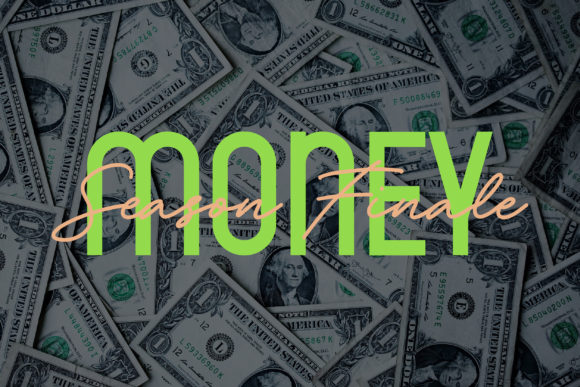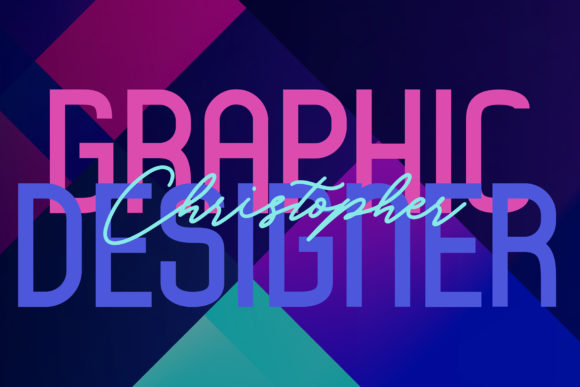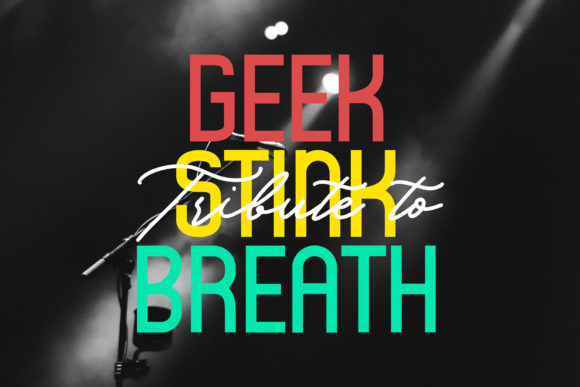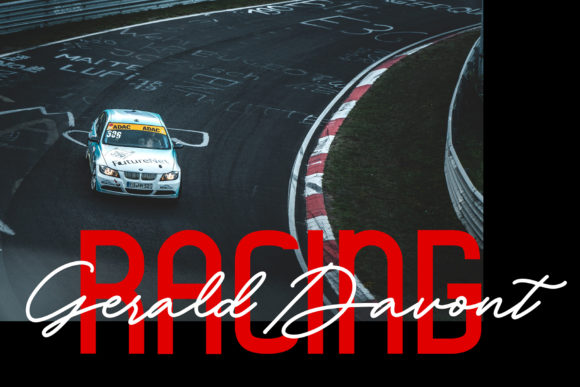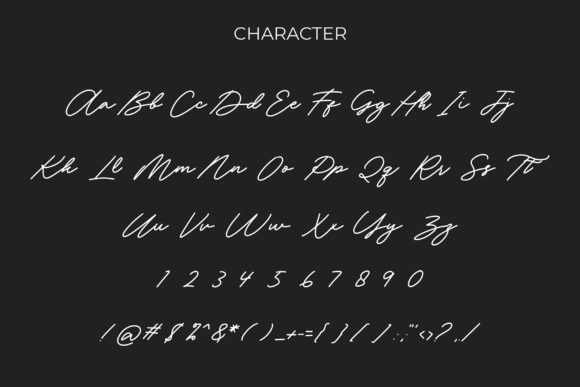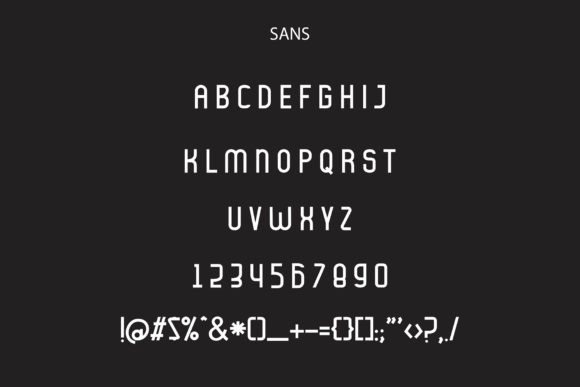
Abariya Font: The Ultimate Duo for Modern Designs
In the world of typography, finding the perfect font combination can be a daunting task. However, when it comes to the Abariya Font duo, it’s a match made in heaven. This stunning pair perfectly combines a cute handwritten font with a gorgeous sans serif, giving designers and crafters the perfect tools to elevate their designs to the highest level.
The Abariya Font Duo: A Perfect Blend of Style and Versatility
The Abariya Font duo is a unique and modern combination that is sure to make your designs stand out. The handwritten font brings a touch of warmth and personality, while the sans serif font adds a level of sophistication and elegance. When used together, these two fonts create a harmonious balance that is perfect for a wide range of design projects.
So, what can you create with the Abariya Font duo? The possibilities are endless! From branding and headings to wedding designs, invitations, signatures, logos, labels, and much more, this font combination is sure to impress. Whether you’re a professional designer or a crafty DIY enthusiast, the Abariya Font duo is the perfect choice for any project.
Why Choose Abariya Font?
So, why choose the Abariya Font duo over other font combinations? Here are just a few reasons why designers and crafters are falling in love with this perfect pair:
- Unique and Modern Feel: The Abariya Font duo gives your designs a unique and modern feel that’s sure to make them stand out.
- Versatility: This font combination is perfect for a wide range of design projects, from branding and headings to wedding designs and invitations.
- Elegance and Sophistication: The sans serif font adds a level of elegance and sophistication, while the handwritten font brings a touch of warmth and personality.
- Easy to Use: The Abariya Font duo is easy to use and can be incorporated into your designs with just a few clicks.
Tips for Using Abariya Font
To get the most out of the Abariya Font duo, here are a few tips to keep in mind:
- Mix and Match: Experiment with different font sizes and styles to create a unique and eye-catching design.
- Use for Headings and Body Text: Use the sans serif font for body text and the handwritten font for headings to create a clear and visually appealing design.
- Add a Pop of Color: Add a pop of color to your design to make it stand out and draw attention to your message.
In conclusion, the Abariya Font duo is a match made in heaven for designers and crafters. With its unique and modern feel, versatility, elegance, and sophistication, this font combination is sure to elevate your designs to the highest level. Whether you’re working on a branding project, wedding design, or just a simple invitation, the Abariya Font duo is the perfect choice. So why wait? Try it out today and see the difference for yourself!